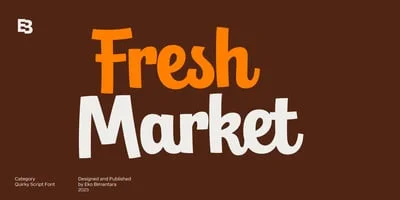
Fresh Market Font
This vibrant typeface excels in organic grocery store branding, farmers market signage, fresh produce packaging, healthy food restaurant menus, juice bar logos, farm-to-table establishments, sustainable product labels, and natural wellness brands. Its crisp appearance makes it perfect for projects emphasizing freshness, health, and natural goodness.
Fresh Market Font generates excitement through its garden-fresh vitality that captures the essence of wholesome living and natural abundance. The font's clean lines and organic curves create an atmosphere of health and wellness that instantly communicates quality and freshness to health-conscious consumers. Its carefully balanced letterforms deliver appetizing appeal while maintaining trustworthy readability that reflects the integrity of natural food sources.
The Fresh Market Font family encompasses multiple harvest-inspired variations including regular, light, bold, organic, and script styles. Each family member preserves the distinctive fresh aesthetic while offering different textures and personalities for diverse healthy lifestyle applications. This nourishing collection allows designers to create appetizing compositions that celebrate the full spectrum of natural goodness from crisp vegetables to ripe fruits.
The Fresh Market Font offers designers access to premium organic typography that brings authentic farm-fresh appeal to any project. Its wholesome character and natural authenticity make it ideal for creating memorable health-focused brands and engaging wellness communications. Whether developing organic food identities, designing farmers market materials, or crafting natural product campaigns, this font provides the fresh appeal and healthy personality essential for connecting with conscious consumers seeking genuine nutrition and sustainable living solutions.